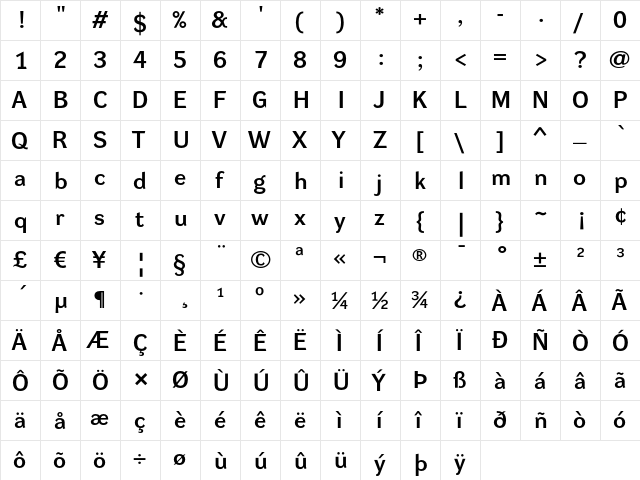
DynaGrotesk DE Regular
Design Context for DynaGrotesk DE Typeface
DynaGrotesk DE has the quiet confidence of well-executed sans-serif typography: versatile, unobtrusive, and dependable at any size.
Font Pairing: Works well alongside a characterful serif or display font that can carry the expressive load while DynaGrotesk DE handles the functional copy.
Pro Tip: Use DynaGrotesk DE for UI labels, navigation, and short-form body copy where clean legibility is the priority.